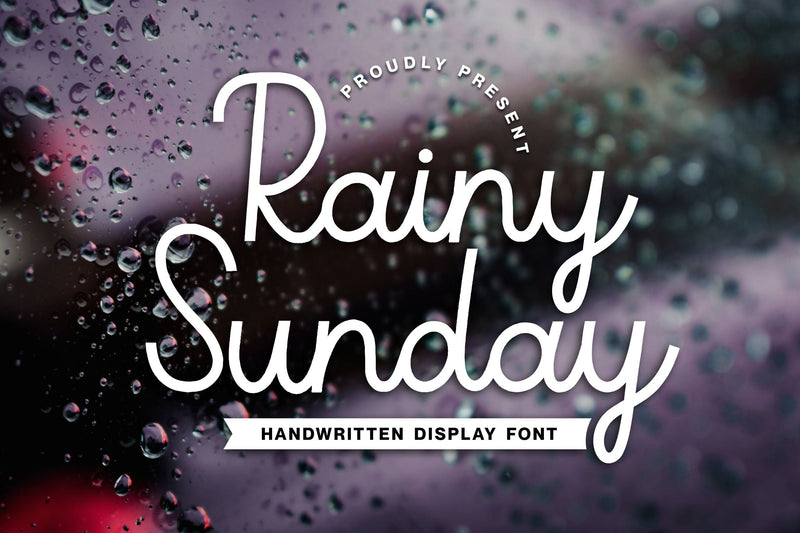
Rainy Sunday Handwritten Display Font
Introducing by Paily Studio!
Rainy Sunday is a Handwritten Display Font.
Rainy Sunday is a magical script font carefully created with a touch of elegance. Whether you’re looking for fonts for Instagram or calligraphy scripts for DIY projects, this font will turn any creative idea into a true piece of art!